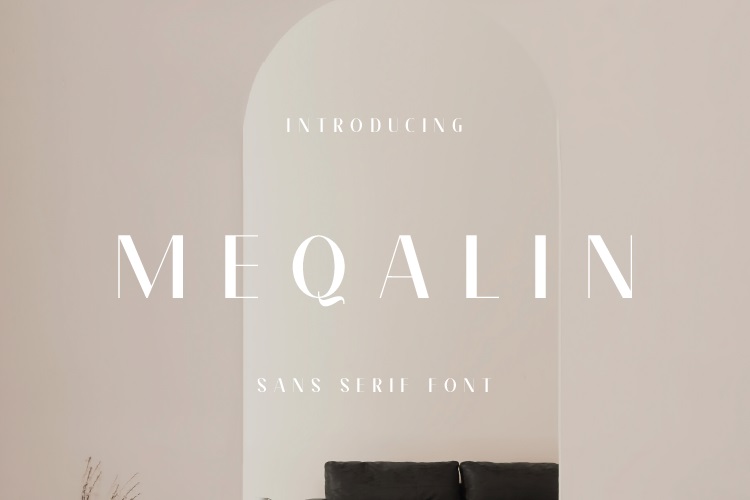
Meqalin Font
Introduce your new design with a touch of bold and stylish appeal to it, Meqalin is a cool sans serif font. It doesn’t matter the design, Meqalin will make any design stand out! It has been PUA encoded, which means you will be able to access all of the beautiful glyphs and swashes with ease!
Meqalin Sans Serif Font